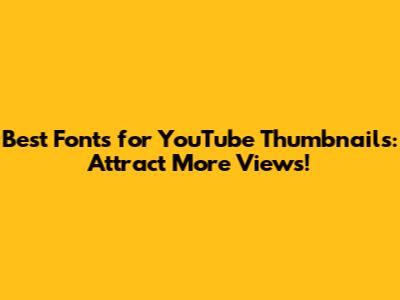
- Consider Your Brand: Your font should reflect your brand's personality and style. If you have a fun and playful brand, a whimsical font might be a good fit. If you have a more serious and professional brand, a clean and modern font might be a better choice. Consistency is key, so try to use the same font (or a similar font family) across all your thumbnails to build brand recognition.
- Think About Your Content: The font should also be relevant to your video's topic. A horror movie review might benefit from a spooky or edgy font, while a cooking tutorial might be better suited for a friendly and approachable font. Consider the overall tone and theme of your video when making your font selection.
- Know Your Audience: Who are you trying to reach with your videos? Your font should appeal to your target audience. If you're targeting a younger audience, you might be able to get away with more playful and trendy fonts. If you're targeting a more mature audience, you might want to stick with classic and professional fonts.
- Test, Test, Test: The best way to find the right font is to experiment and see what works best. Try out different fonts and color combinations and see which ones get the most clicks. Pay attention to your click-through rate (CTR) and make adjustments as needed. What works for one video might not work for another, so it's important to continuously test and optimize your thumbnails.
- Readability is King: This cannot be stressed enough! Your font should be easy to read at a glance, even on small screens. Avoid overly ornate or complicated fonts that can be difficult to decipher. Choose fonts that are clear, concise, and easy on the eyes.
- Contrast is Your Friend: Make sure your font has sufficient contrast against the background. If you're using a light font, use a dark background. If you're using a dark font, use a light background. This will help your text stand out and make it easier to read.
- Size Matters: Use a font size that's large enough to be easily readable, but not so large that it overwhelms the thumbnail. Experiment with different sizes to find the sweet spot. And remember to consider how the font will look on different devices, such as smartphones and tablets.
- Limit Your Fonts: Don't use too many different fonts in a single thumbnail. Stick to one or two fonts at most. Using too many fonts can make your thumbnail look cluttered and unprofessional. A simple and clean design is usually more effective.
- Use Whitespace Wisely: Don't cram too much text into your thumbnail. Leave plenty of whitespace around your text to give it room to breathe. Whitespace can help to improve readability and make your thumbnail look more appealing.
- Google Fonts: A vast library of free and open-source fonts that you can use for your thumbnails. Google Fonts offers a wide variety of styles, from classic to modern, and is a great place to start your font search.
- Adobe Fonts: A subscription-based service that gives you access to thousands of high-quality fonts. Adobe Fonts is a great option if you're looking for more premium and unique fonts.
Creating eye-catching YouTube thumbnails is essential for attracting viewers and boosting your channel's success. And guess what, guys? The font you choose plays a huge role! It’s not just about slapping any old text on your thumbnail; it's about selecting a font that grabs attention, is easy to read, and reflects your brand's personality. So, let’s dive into the awesome world of fonts and figure out which ones will make your thumbnails pop and get those clicks rolling in!
Why Font Choice Matters for YouTube Thumbnails
Okay, let's get real for a second. Your thumbnail is often the first thing potential viewers see. Think of it as the cover of a book – it needs to make a killer first impression! The font you use directly impacts how viewers perceive your content. A clear, bold font can instantly communicate the video's topic, while a fancy, hard-to-read font can send viewers running the other way. Readability is key, folks. If people can't quickly understand what your video is about, they're not going to click. A well-chosen font can also reinforce your brand identity. Using the same font consistently across your thumbnails helps viewers recognize your content and builds brand recognition. Plus, the right font can evoke emotion and create intrigue. A playful font might be perfect for a comedy video, while a strong, serious font might be better suited for a documentary. The point is, don't underestimate the power of font choice! It's a crucial element in your thumbnail design that can significantly impact your click-through rate and overall channel growth. Experiment with different fonts to see what resonates with your audience and fits your unique style. Remember, your thumbnail is your chance to shine, so make every pixel count!
Top Font Styles for YouTube Thumbnails
Alright, let's get to the fun part – exploring some of the best font styles for YouTube thumbnails! Finding the perfect font can feel like searching for a needle in a haystack, but don't worry, I've got you covered. These are some tried-and-true options that are guaranteed to make your thumbnails stand out from the crowd.